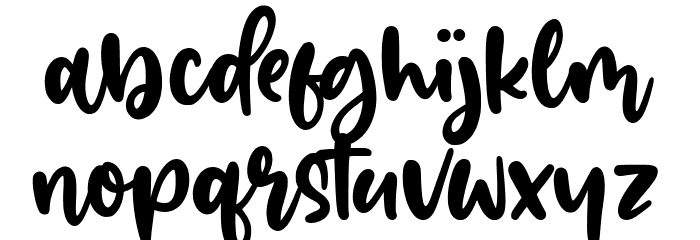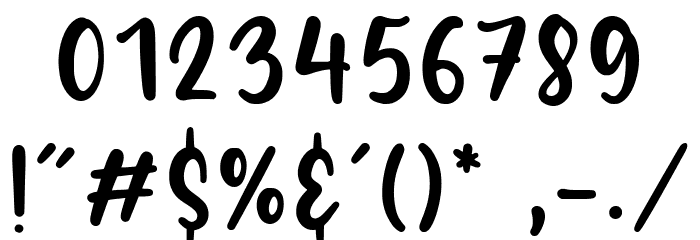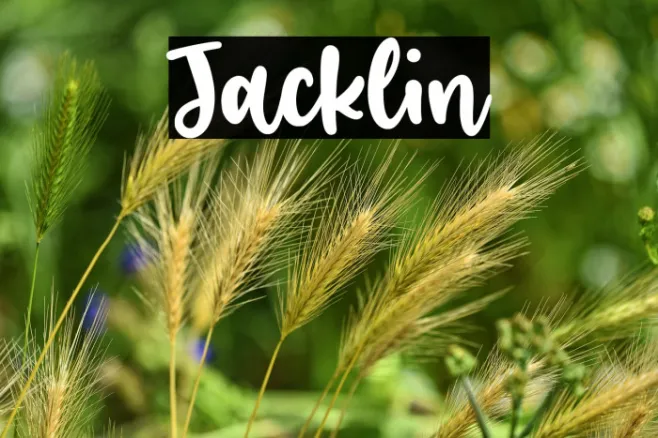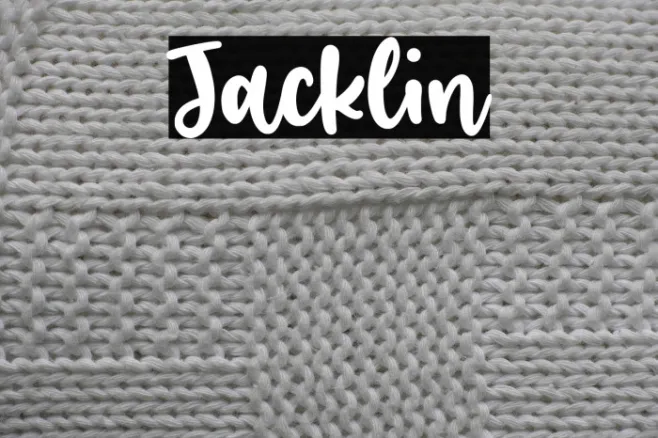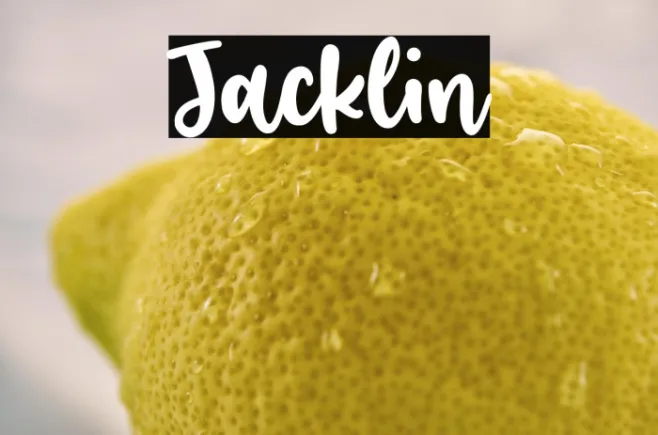
Jacklin Font
This font features a playful and casual handwritten style, characterized by its bold and rounded letterforms. The strokes are smooth and fluid, giving a sense of movement and energy. The uppercase letters maintain a consistent height, while the lowercase letters exhibit a slight variation in size, adding to the informal aesthetic. The numerals are clear and legible, matching the overall style of the alphabet. Special characters are included, maintaining the same lively and approachable feel. This font is perfect for projects that require a friendly and personal touch.
A bold, playful handwritten font with smooth, rounded strokes.
- Proposed Projects: Ideal for greeting cards, invitations, social media graphics, and branding materials that aim for a personal and approachable look.
- Overall Style: Casual
- Use Case: Logos, Headlines, Social Media Graphics